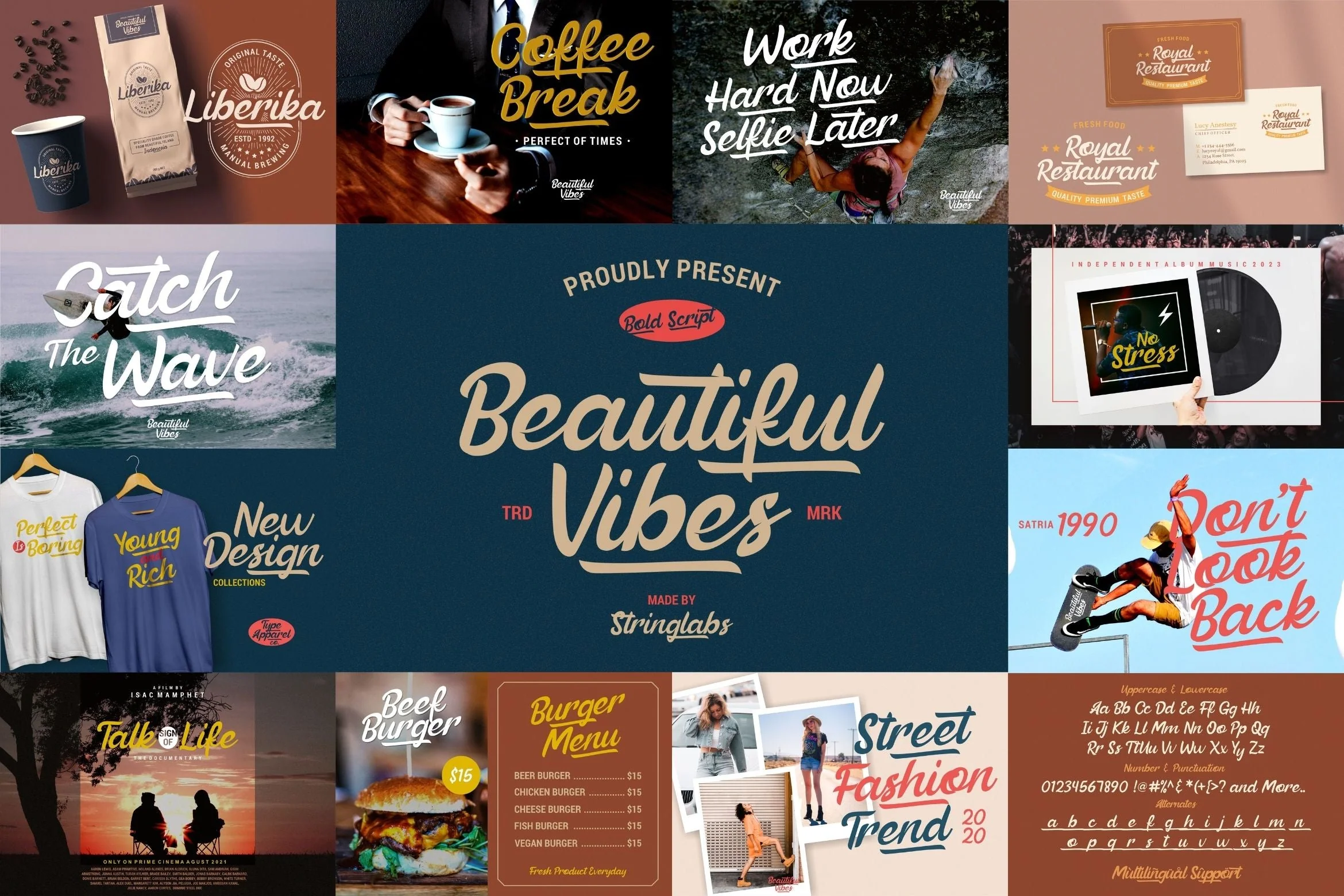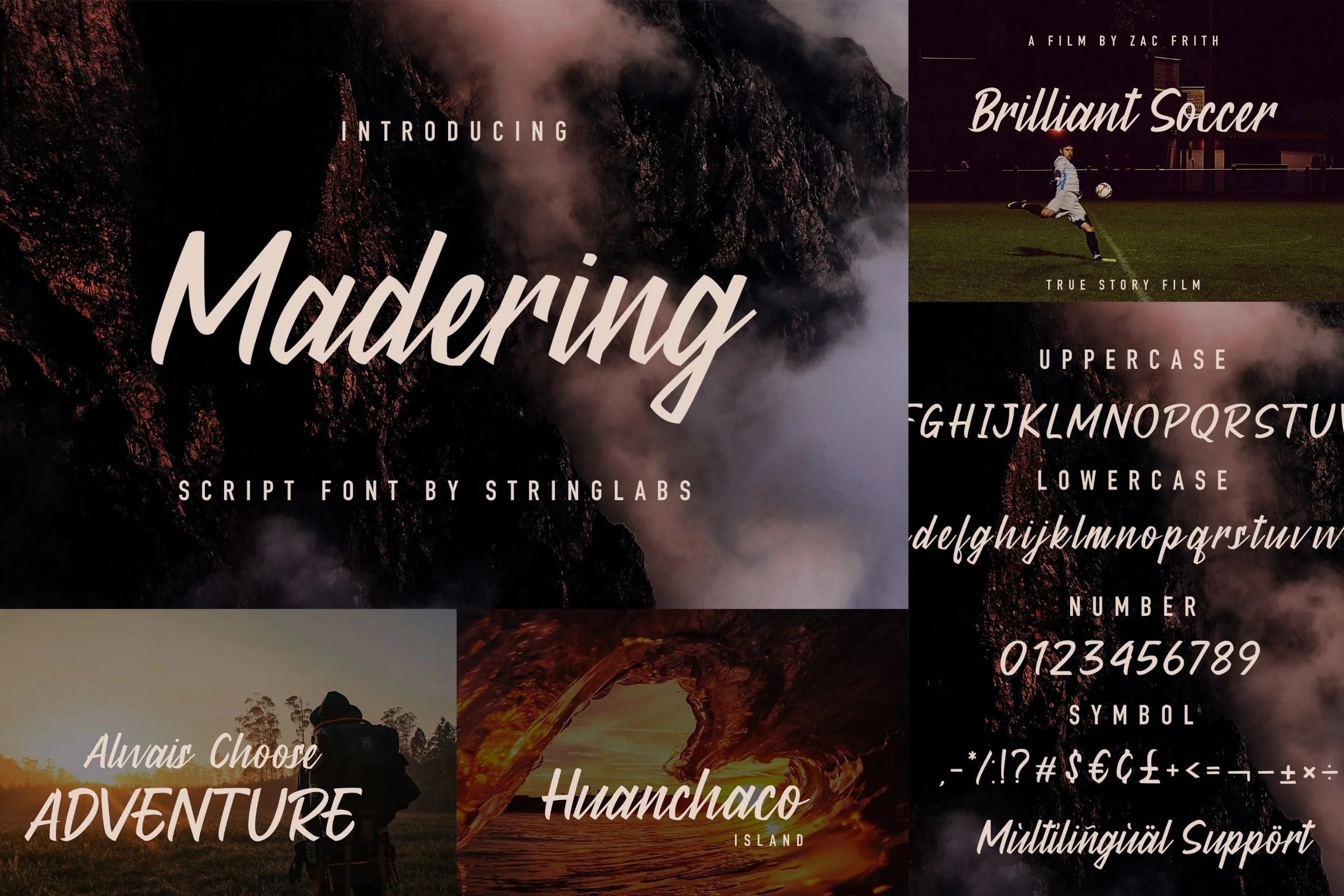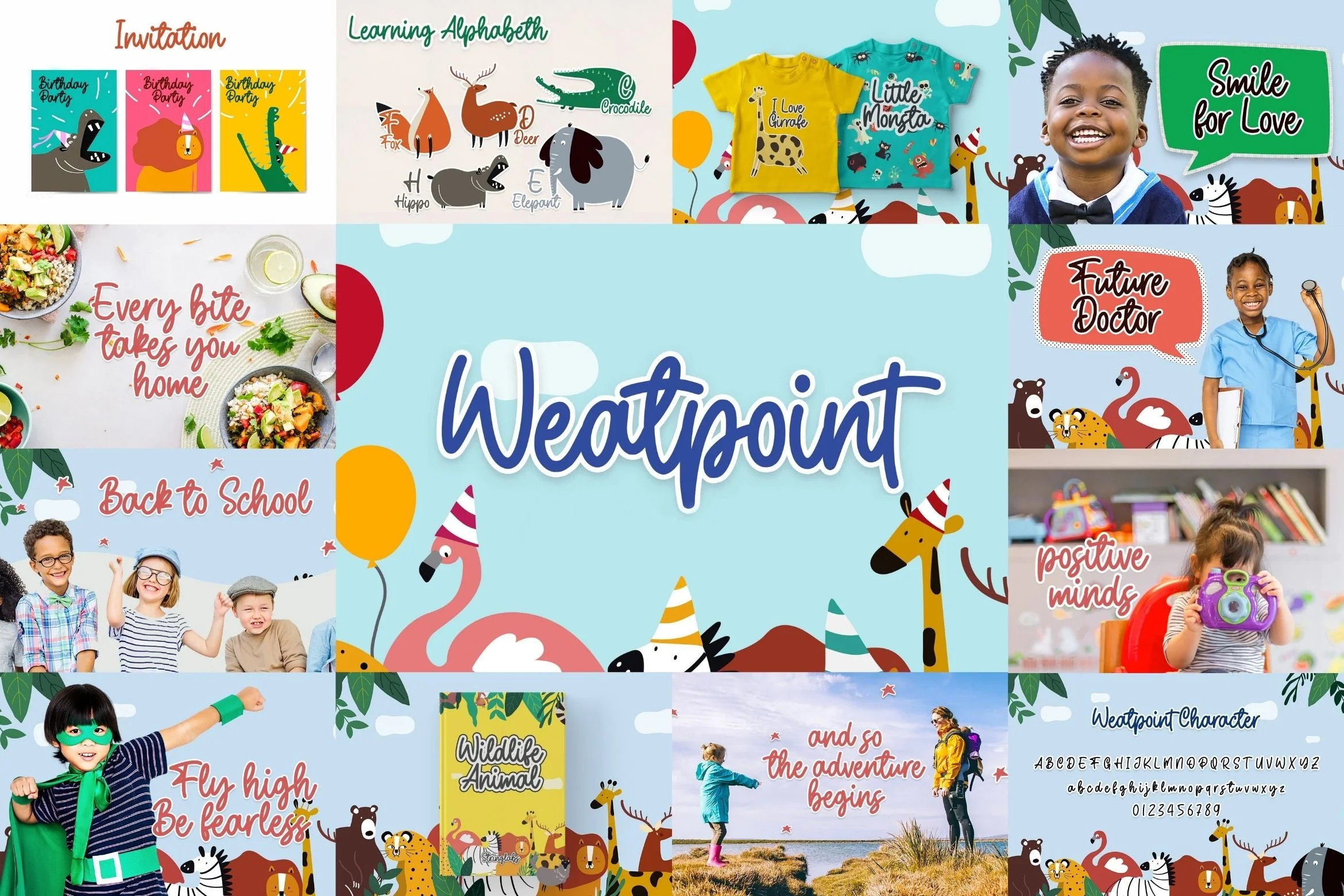
Handwritten Font Bundle Vol 18 is a delicate, elegant and flowing handwritten font. This font bundle contains 8 high quality handwritting script font, it will look simply magical in a wide range of design projects, and also that will look particularly adept when used in logos, branding, packaging design, and much more. It has beautiful and well balanced characters and as a result, it matches a wide pool of designs. Add it to your most creative ideas and notice how it makes them come alive!
1. StringLabs
2. Dattge Hurty
3. Carmelia
4. Weatpoint
5. Madering
6. Hollywise
7. Hallywood
8. Beautiful Vibes